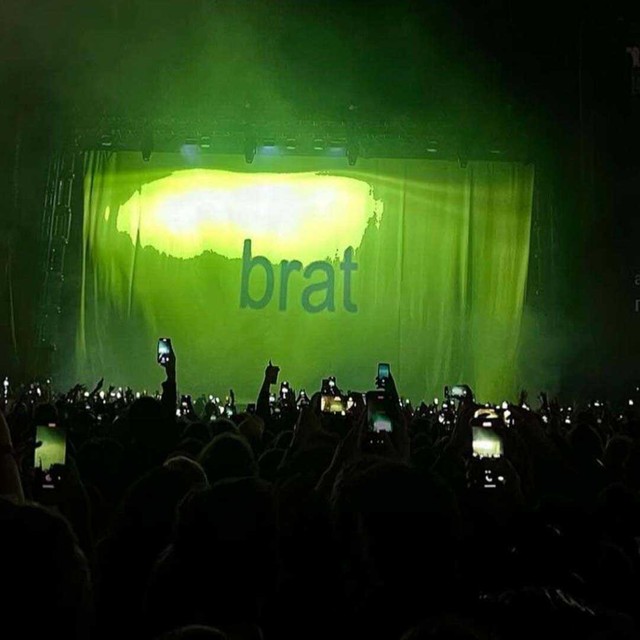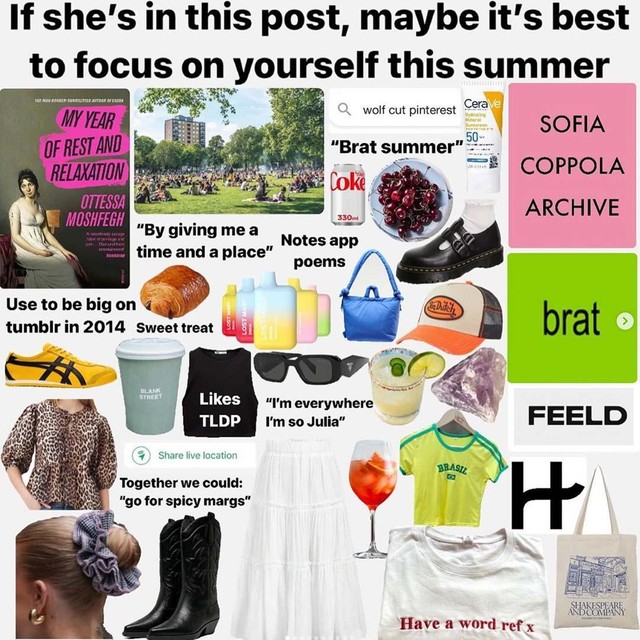
Bts with Special Offer Inc. + meme round up —
Our ROM typeface was used by legends Special Offer, Inc. for the Charli XCX artwork. Been pure brat energy ever since!!
this is actually arial
ROM is the secondary font. Shout out to Jack, Imogene, Brent, Savannah & Seb!
I caught Special Offer’s Brent David Freaney on whatsapp for some bts gossip and color grading insights. Below’s our unedited conversation + a round up of my favorite brat memes. Also: we’re taking pre-orders for our new charli-inspired fonts t-shirt!
Hi Brent! I have to leave the office rn so in case you can chat here throwing down my first q. How did the idea for green + fuzzy font come about?
Ok. Charli had a very clear idea of what she wanted from the jump. It was definitely always going to be sans serif and it was always going to be a shade of green.
We went through hundreds of pairings of type and color and, along with Charli’s creative director Imogene Strauss, ultimately chose a green that felt very off-trend. Something that didn’t ooze “taste.”
We designed the album at 150px/72dpi then resized for whichever format we needed it for in the earlier days of the campaign. It then became a daily task for someone at the studio to have to communicate to a printer that the low res was intentional.
HA! I keep reading that so much of the roll out plan came from charli herself. Can you tell me more about her involvement with your design process?
Charli was always very involved which made the entire design process so fluid and seamless.
I’ve never worked with an artist that is so simultaneously present and trusting as Charli has been. She knew what she liked immediately and really gave us the opportunity to choose layouts, packaging, and materials in the record’s artwork that also excited us as designers.
Projects that go well are projects where there is a strong mutual trust on both sides of the partnership. Everything just ‘clicked’ in this project and we couldn't be happier.
You know something’s really hit when it moves through culture FAST. What do you think it is about the whole campaign that made it travel so quickly?
Personally I believe the reason the campaign has been so visible and omnipresent is because it is a fuckin banger record end to end with the most compelling pop star alive at the helm of it.
Visually its ability to travel so quickly through culture has to do with the cover's simplicity. Anyone can recreate it. Anyone can have fun with it.
Absolutely agree. Last q: Can u share the code for the green? We have an idea.
#8ACE00